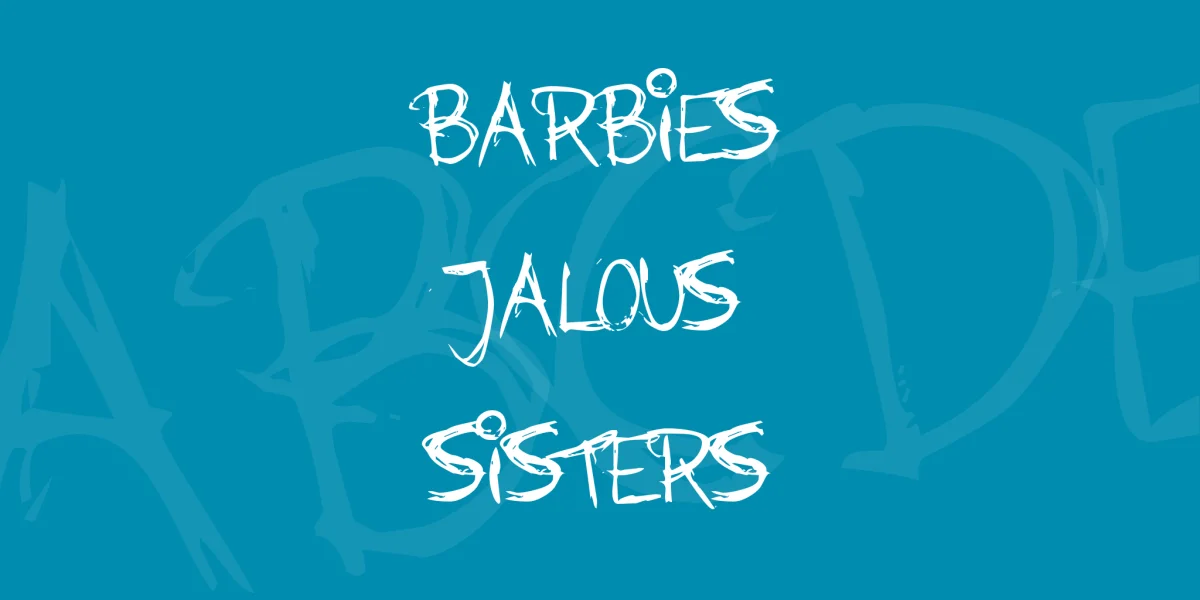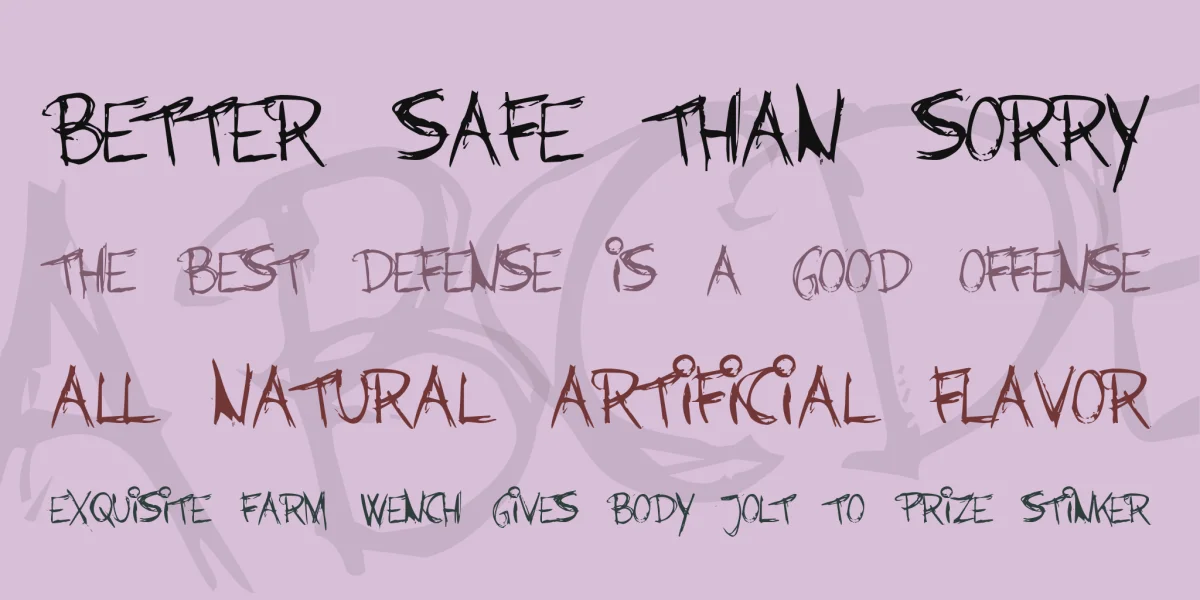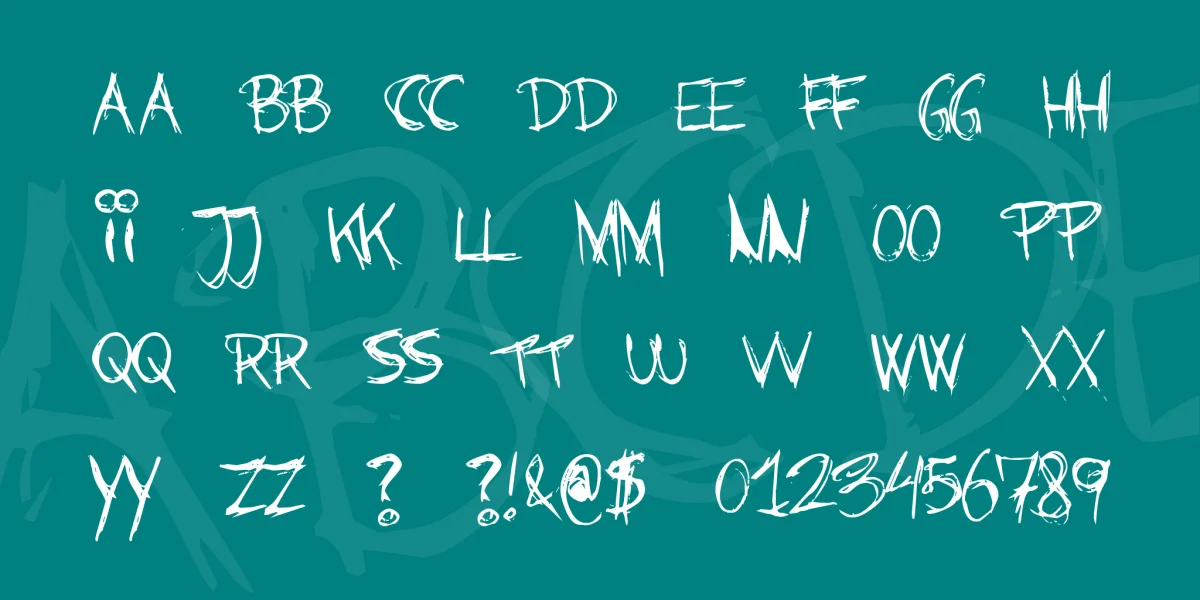
The handwriting of Barbies Jalous Sister… Ugly can be usefull sometimes… (english, scandinavian and german characters included). As of December 2012 the font is $10 for a commercial license, you can use the Donate button ->